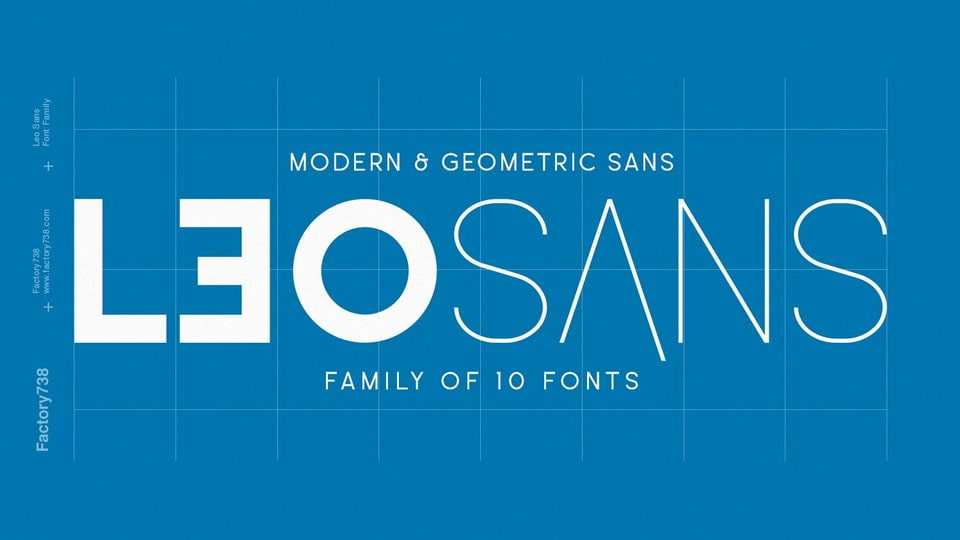
Download Leo Sans font, a modern sans serif typeface with a geometric touch, with clean, modern caps for added variability. Leo Sans is ideal for graphic design, web, signage, corporate, and editorial design.
Designer: Factory Type